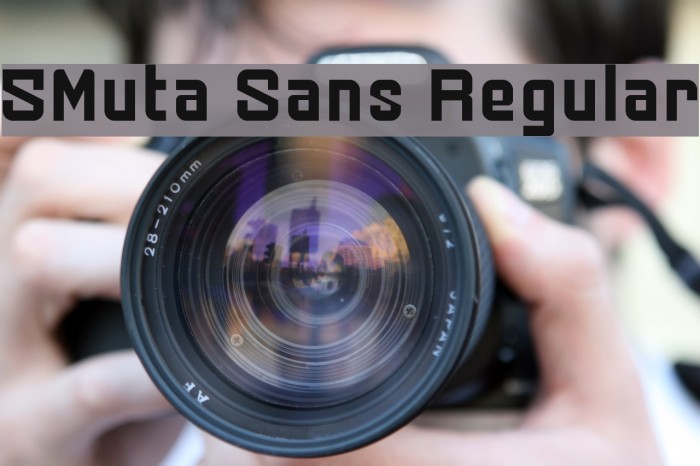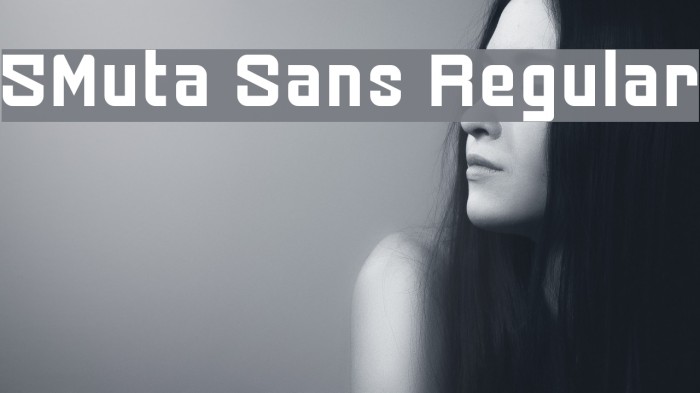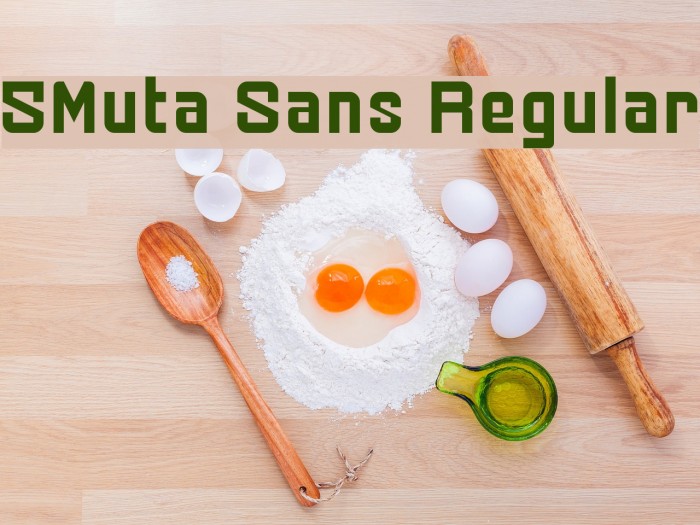
5Muta Sans Regular Font
This font features a modern, geometric sans-serif style with a strong, bold presence. The characters are constructed with uniform stroke widths, giving it a clean and structured appearance. The uppercase letters are slightly squared, while the lowercase letters maintain a consistent height, enhancing readability. The numerals are distinct and align well with the overall design, making them suitable for digital displays. Special characters are well-integrated, maintaining the font's cohesive look. Its design is versatile, making it ideal for both digital and print media.
A modern, geometric sans-serif font with a bold and structured appearance.
- Proposed Projects: Ideal for digital interfaces, branding, signage, and editorial design.
- Use Case: Headlines, Logos, Digital displays